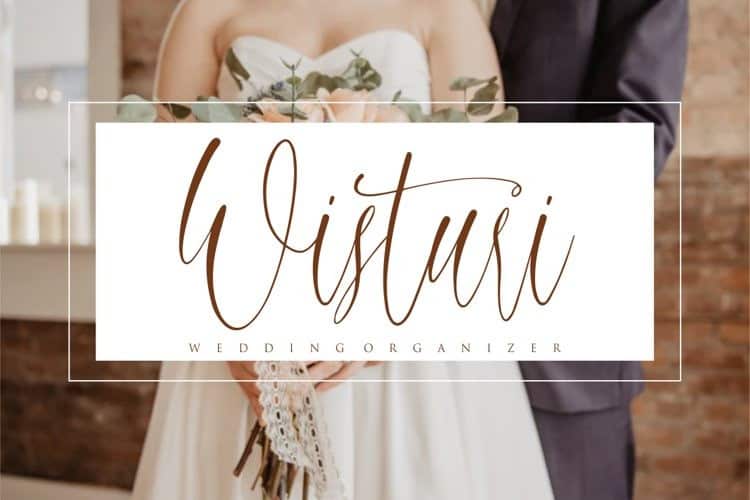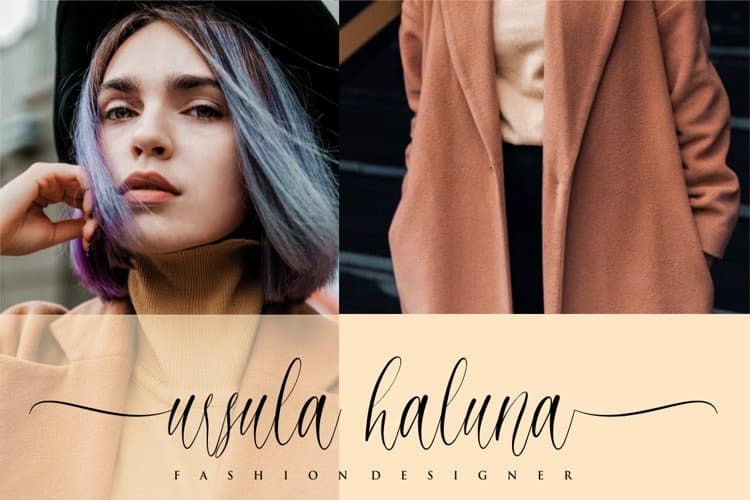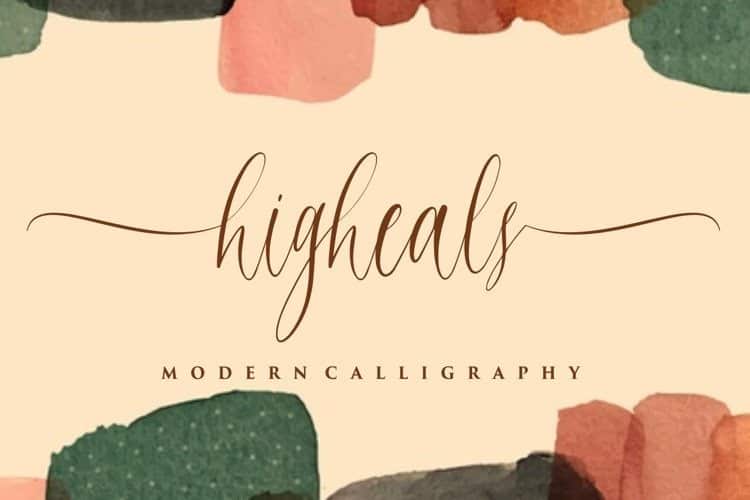
Higheals Calligraphy Font
Higheals Calligraphy Font is a hand-drawn font with a unique, quirky and versatile style. This typeface is made in a modern style with a very beautiful beginning and ending. elegantly, very casual and suitable for your various design needs It’s Perfect for logo, branding, tittle, social media posts, advertisements, product packaging, product designs, label, photography, watermark, special event, magazine, web design, etc.